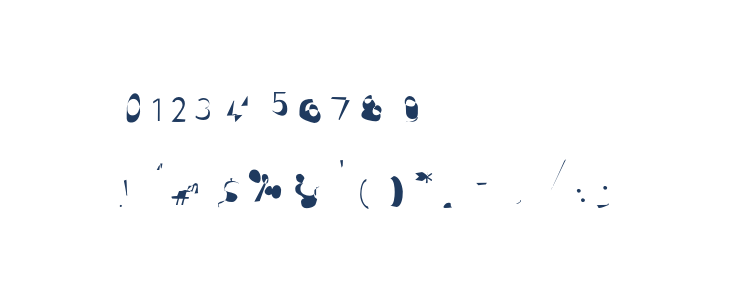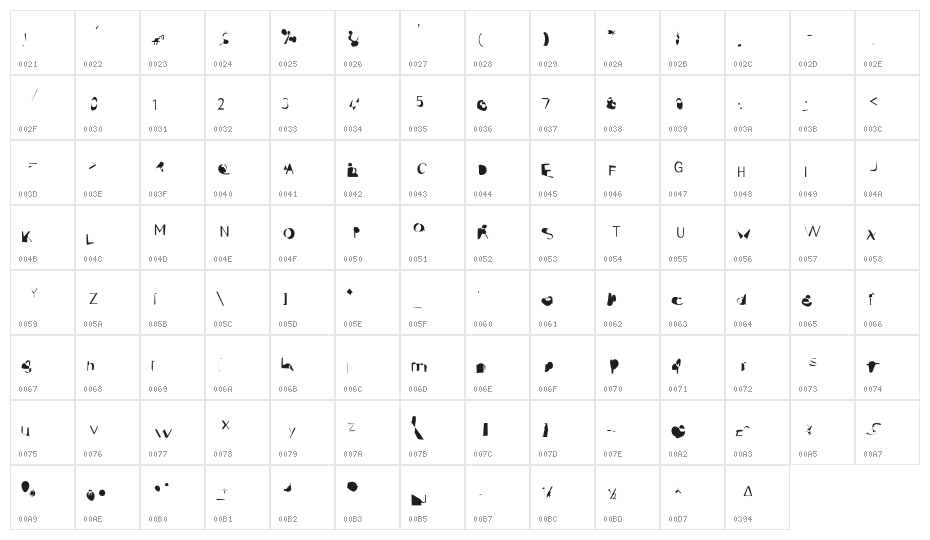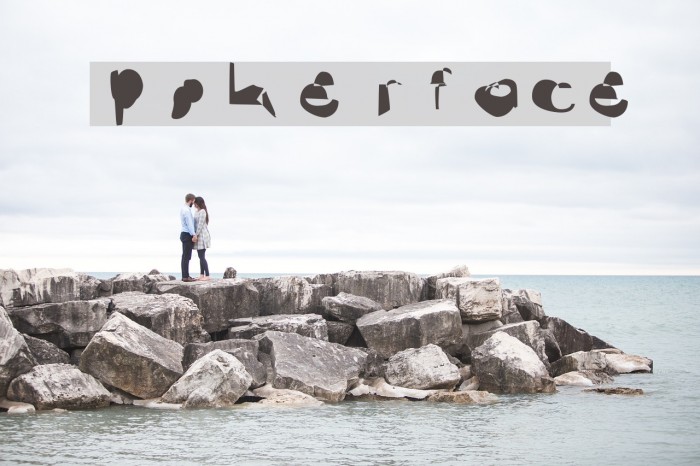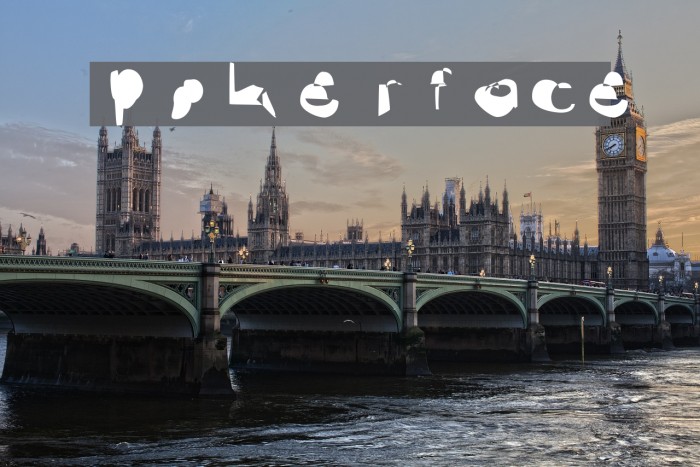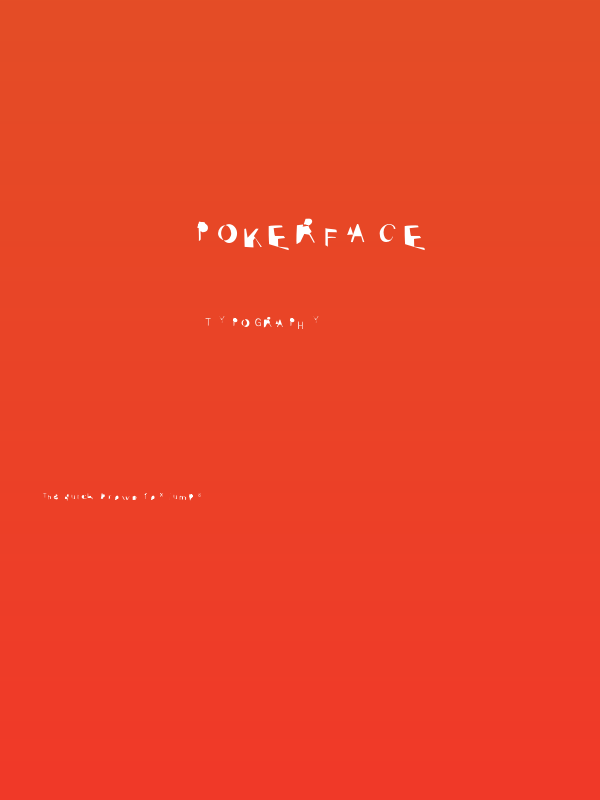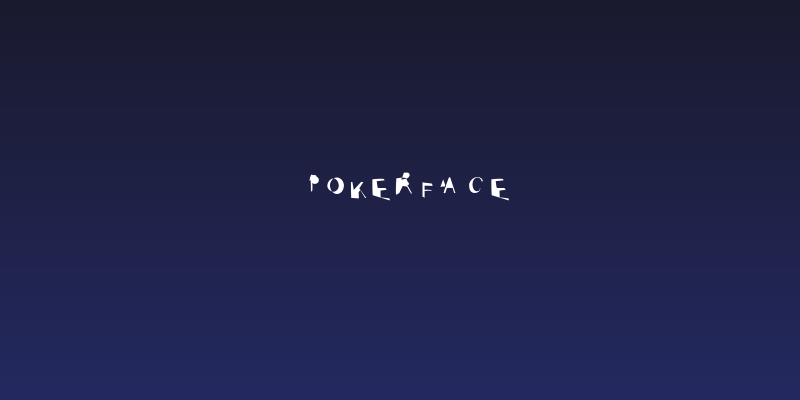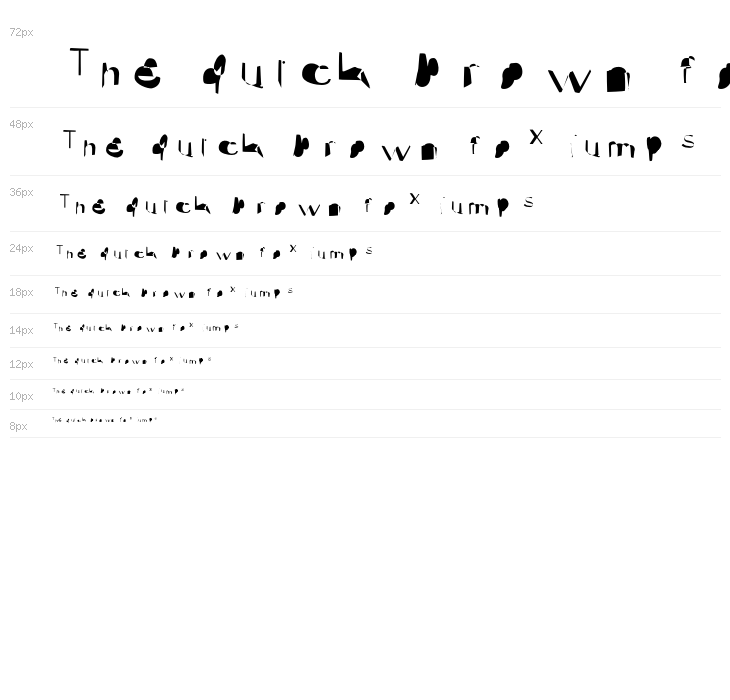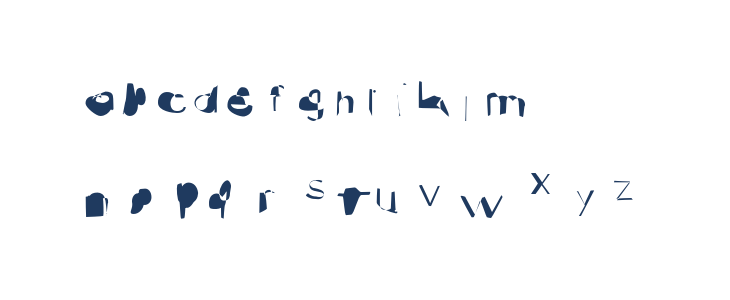
pokerface Font
pokerface Description
This font features a highly abstract and fragmented design, with each character appearing as if it has been cut and rearranged. The letters are bold and irregular, creating a sense of chaos and unpredictability. The uppercase and lowercase letters share a similar style, with jagged edges and varying line thicknesses. Numbers and special characters follow the same fragmented aesthetic, making the font suitable for creative and unconventional projects. The overall appearance is striking and attention-grabbing, ideal for designs that aim to stand out.
| Overall Style | Modern, Abstract |
| Proposed Projects | Ideal for artistic projects, album covers, posters, and any design requiring a bold, unconventional look. |